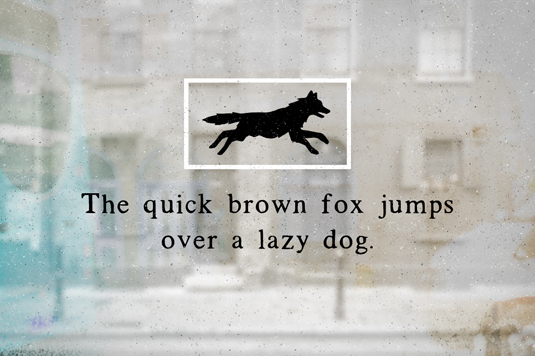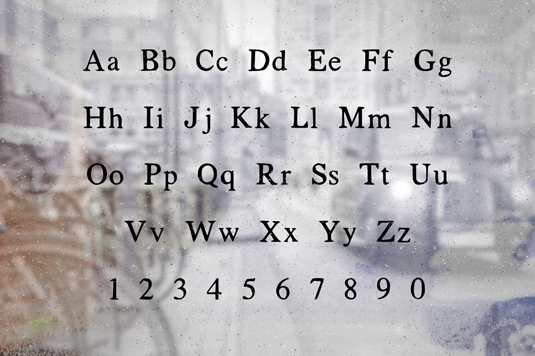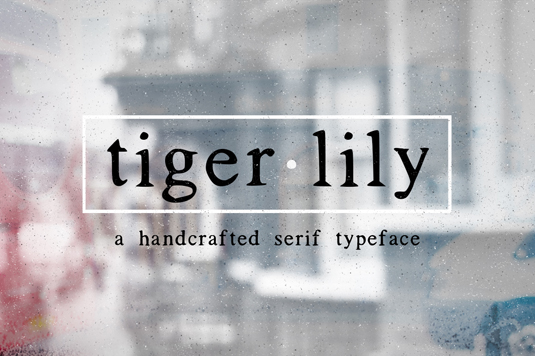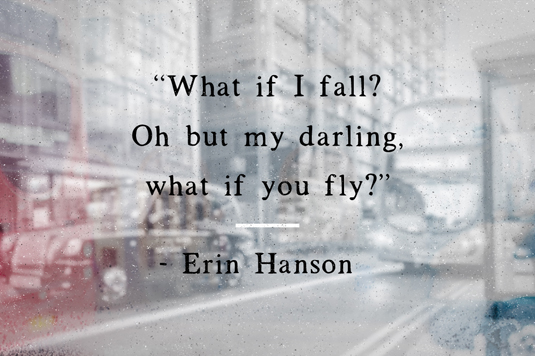
Font of the day: Tigerlily
Every day we showcase the best fonts on the web. Today it's Tigerlily from Jackrabbit Creative.
Tigerlily from Jackrabbit Creative
Tigerlily is a handcrafted serif font by Jackrabbit Creative, inspired by elegant cityscapes. Tigerlily brings a handmade feel to an otherwise 'sophisticated' feeling typeface and has more than a hint of traditional typewriter fonts.